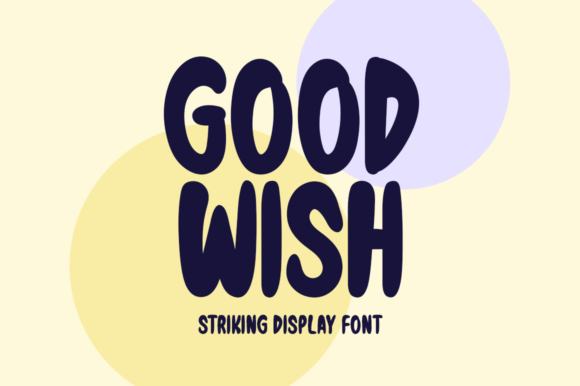
Introducing Good Wish Font: Elevate Your Designs with a Striking Display Font
Are you tired of using the same old fonts for your creative projects? Look no further than Good Wish Font, a stunning display font that is sure to make your designs stand out. With its unique and eye-catching style, Good Wish Font is the perfect addition to any project, from branding and advertising to packaging and digital media.
The Power of Good Wish Font
Good Wish Font is a versatile and highly adaptable font that can be used in a wide range of applications. Its striking design makes it perfect for headlines, titles, and other display text, while its clear and legible style ensures that it can be used for body text and other smaller applications.
One of the key benefits of Good Wish Font is its ability to add a touch of elegance and sophistication to any design. Its unique style is both modern and timeless, making it perfect for designers who want to create a lasting impression. Whether you’re working on a luxury brand or a cutting-edge tech startup, Good Wish Font is sure to help you achieve your design goals.
Matching Good Wish Font to Your Projects
One of the best things about Good Wish Font is its incredible versatility. It can be matched to an incredibly large set of projects, from bold and edgy designs to more subtle and understated applications. Here are just a few examples of how you can use Good Wish Font to elevate your designs:
- Branding and Identity: Use Good Wish Font to create a bold and memorable brand identity that sets your business apart from the competition.
- Advertising and Marketing: Good Wish Font is perfect for headlines and titles in advertising and marketing materials, such as brochures, flyers, and posters.
- Packaging: Add a touch of elegance and sophistication to your product packaging with Good Wish Font.
- Digital Media: Use Good Wish Font to create eye-catching social media graphics, blog posts, and other digital content.
Tips for Using Good Wish Font
To get the most out of Good Wish Font, here are a few tips to keep in mind:
- Use it sparingly: Good Wish Font is a bold and attention-grabbing font, so use it sparingly to avoid overwhelming your design.
- Experiment with different sizes: Good Wish Font looks great in a variety of sizes, from large headlines to smaller body text.
- Pair it with other fonts: Good Wish Font pairs well with a variety of other fonts, so don’t be afraid to experiment with different combinations.
The Benefits of Using Good Wish Font
So why should you choose Good Wish Font for your next design project? Here are just a few of the benefits of using this amazing font:
- Unique and eye-catching style: Good Wish Font is a truly unique and eye-catching font that is sure to make your designs stand out.
- Highly versatile: Good Wish Font can be used in a wide range of applications, from branding and advertising to packaging and digital media.
- Elegant and sophisticated: Good Wish Font adds a touch of elegance and sophistication to any design, making it perfect for luxury brands and high-end applications.